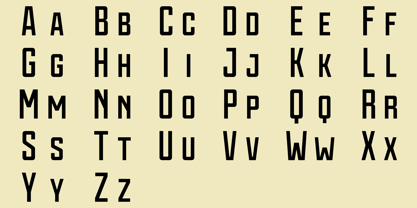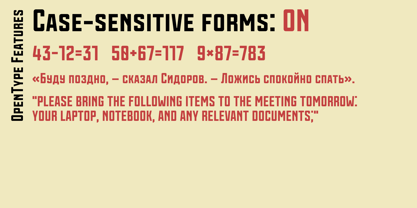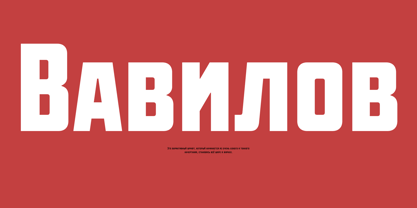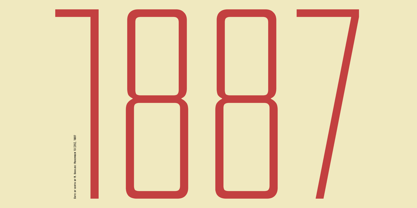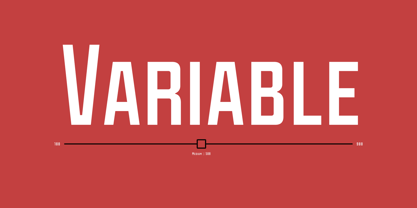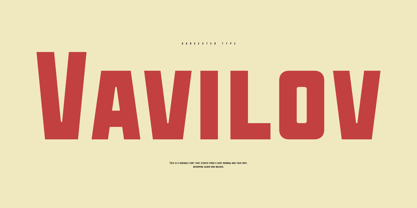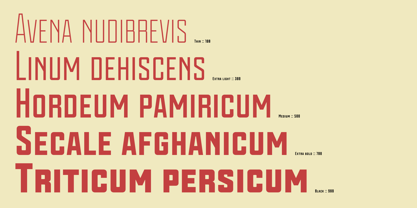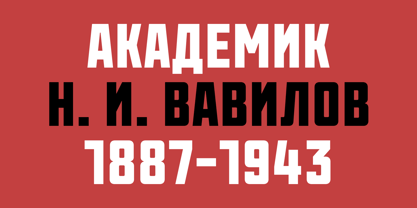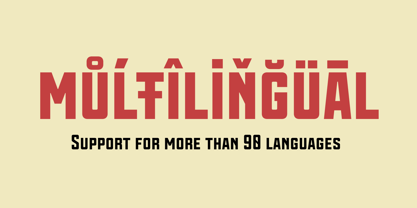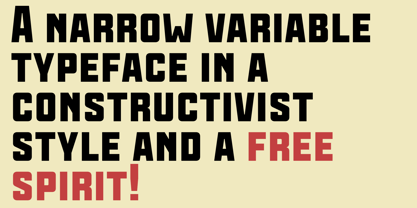
Vavilov
by Harvester Type
The Vavilov Font Family was designed by Eugene Bunin and published by Harvester Type. Vavilov contains 6 styles and family package options. More about this family
Vavilov is a variable font that starts from a very narrow and thin font, becoming wider and bolder. The font is inspired by constructivism. The variability of the font and its versatility give great possibilities in design. OpenType features, great language support (95+ languages) they also make the font a universal soldier.